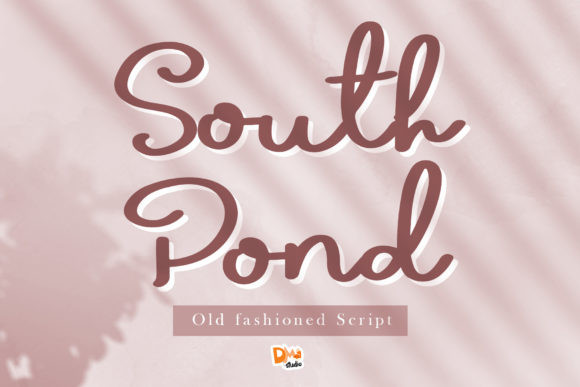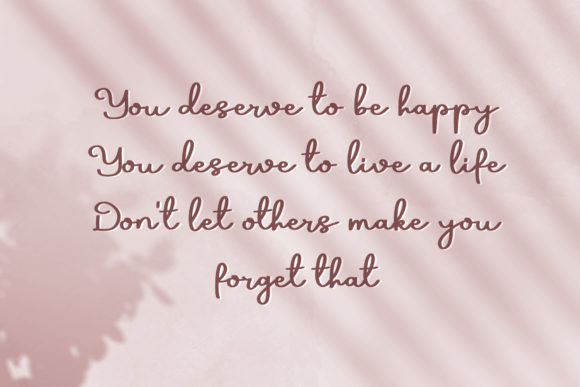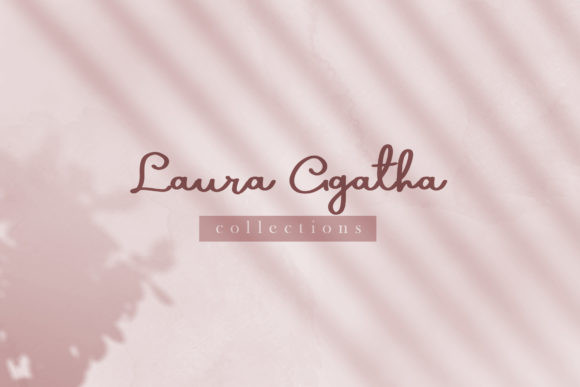
South Pond Font
South Pond is a sweet and friendly handwritten font. Its natural and unique style makes it incredibly fitting to a large pool of designs. The only limit is your imagination!